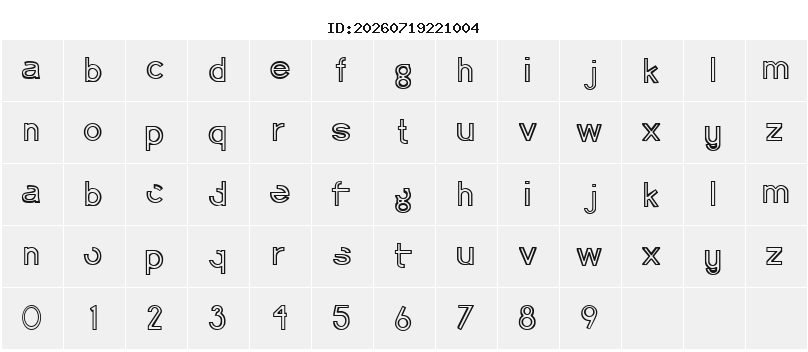
Erasure Preview
• Font Name: Erasure
• Font ID: Altsys Fontographer 3.5 Erasure Regular
• Full Font Name: Erasure Regular
• Version: Altsys Fontographer 3.5 3/3/95
• PostScript Name: Erasure
• Copyright: Erasure! A font Eric Oehler for the Kiwi Media Group. Created with Fontographer 3.5.1
About Erasure.ttf
Erasure.ttf is a modern, elegant sans-serif font designed for ultimate readability and visual harmony. Perfect for branding, headlines, web design, and print materials.